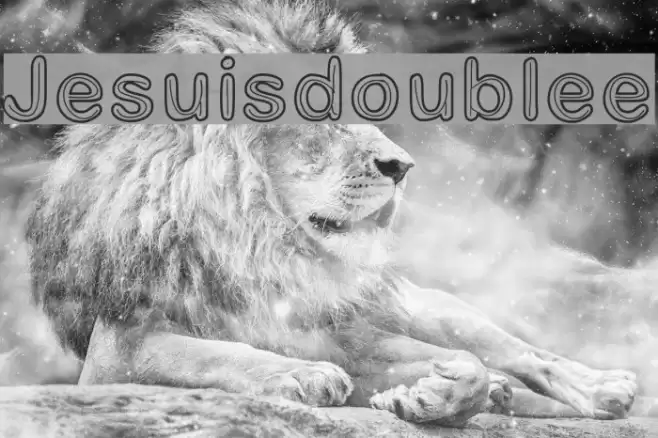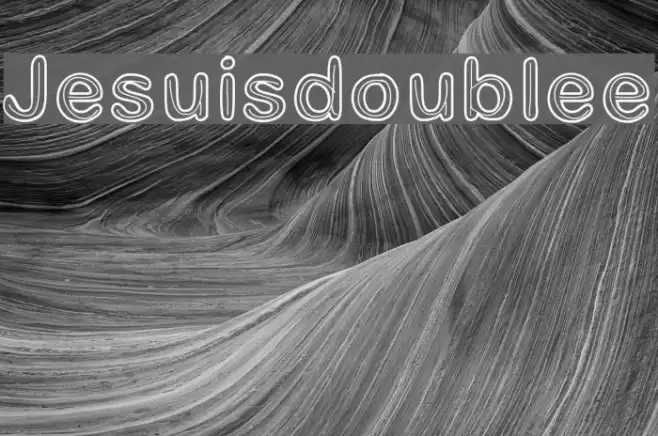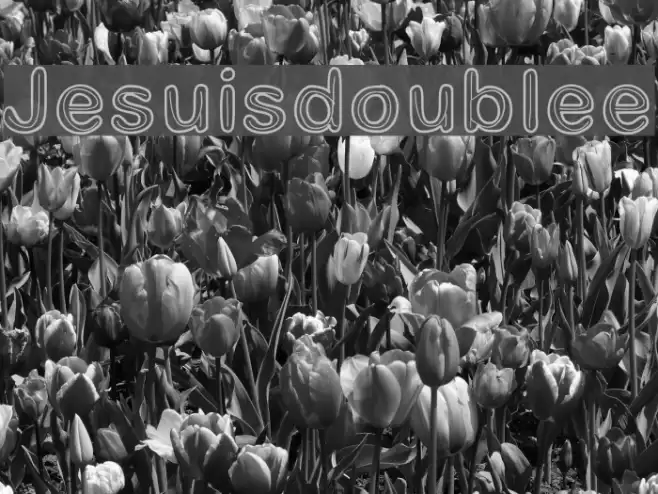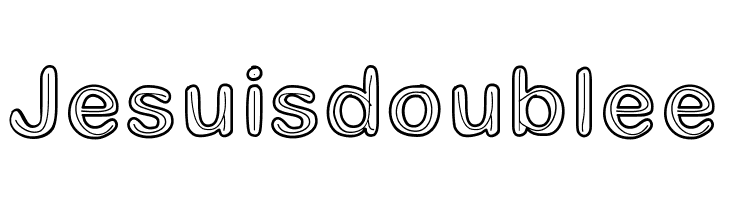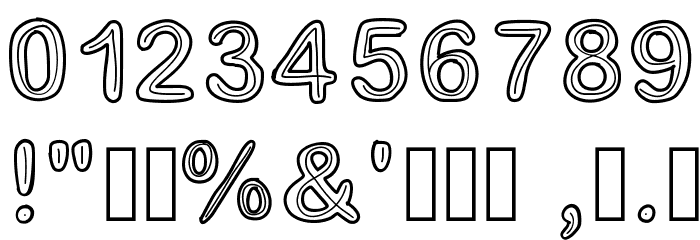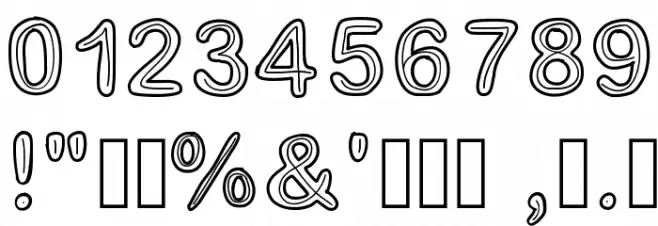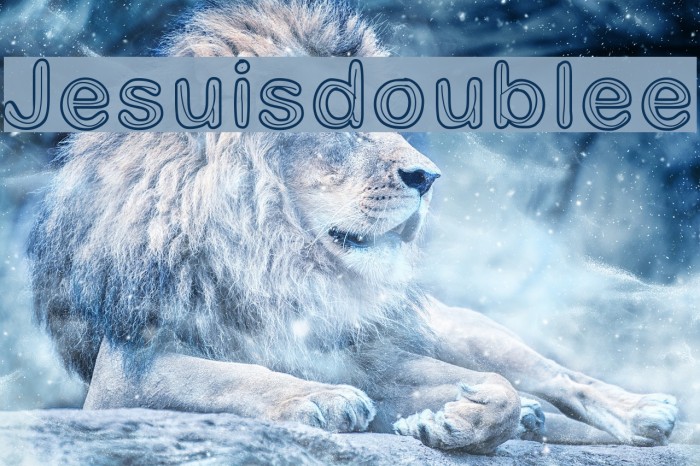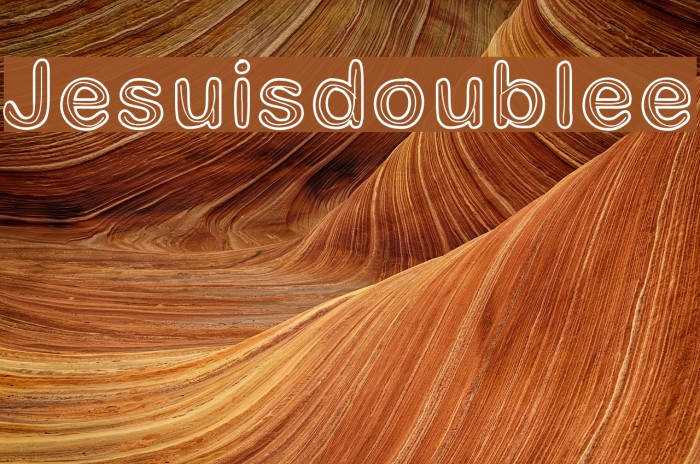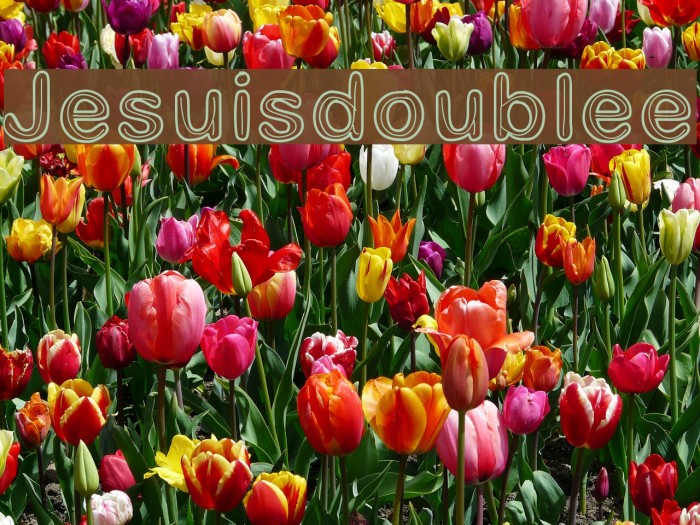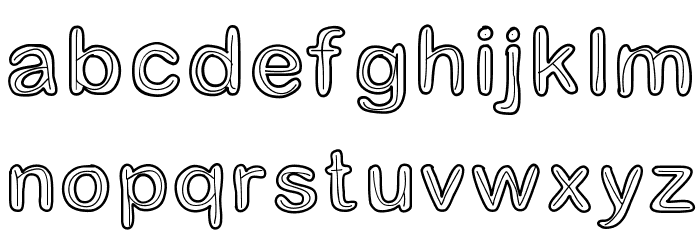
Jesuisdoublee Font
Jesuisdoublee Description
This font features a playful and modern outline style, characterized by its double-line structure that gives each character a unique, dimensional appearance. The letters are rounded and smooth, providing a friendly and approachable feel. The uppercase and lowercase letters maintain consistent proportions, ensuring readability while adding a touch of whimsy. Numbers and special characters are designed with the same outline effect, making them stand out in any design. This font is perfect for projects that require a fun and engaging look, such as children's books, posters, and creative branding.
A playful, modern outline font with a double-line structure and rounded characters from Uncategorized fonts.
- Proposed Projects: Ideal for children's books, playful posters, creative branding, and eye-catching headlines.